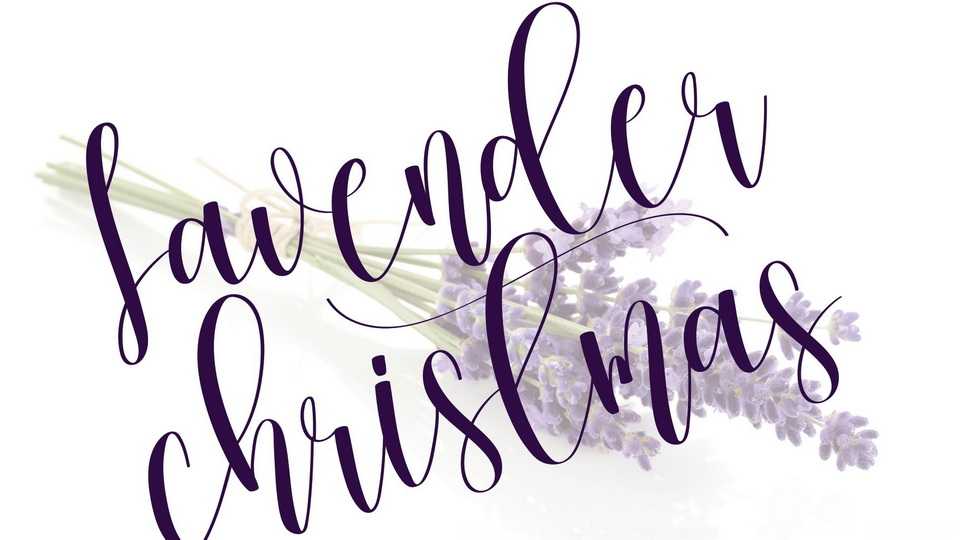
Download Lavender Christmas font, a creative handwriting typeface with a dynamic flow. Lavender Christmas will look great on wall displays, wedding invitations, social media post logos, advertisements and more.